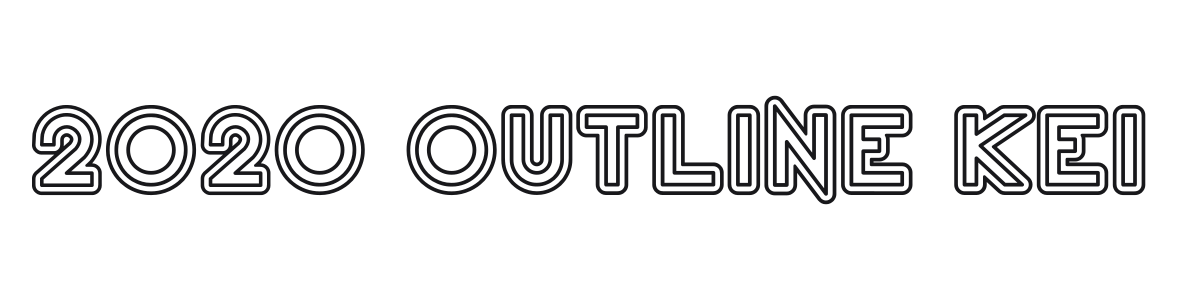
2020 Outline Kei
2020 Outline Kei is a bold rounded outline font built from multiple concentric stroke layers that give each character a clean, airy silhouette. The wide, consistently rounded forms sit somewhere between retro warmth and contemporary minimalism, making it easy to overlay on photos or stack with other type. It works naturally in logo lockups, magazine headers, and social media graphics.